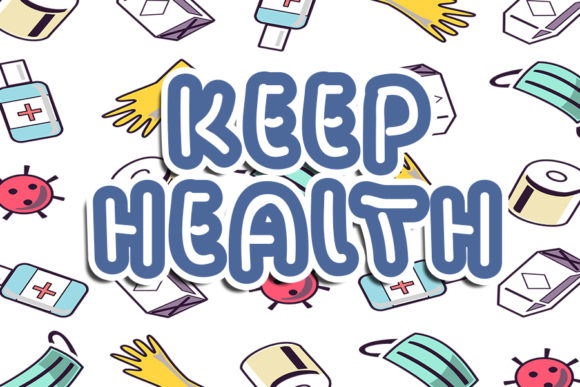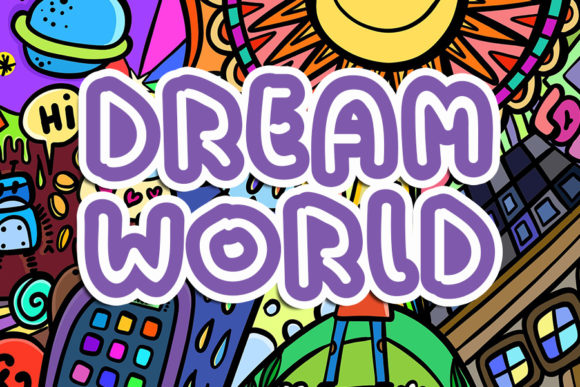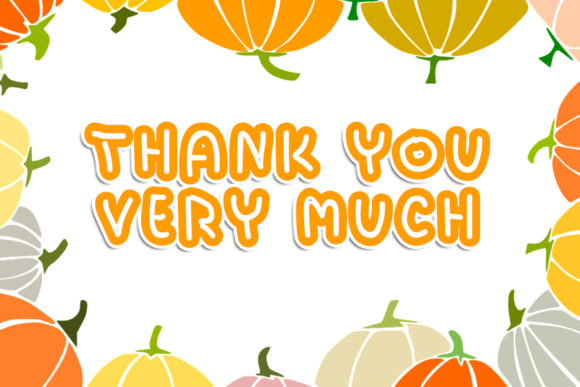
About Smart School Font
Smart School is a unique and fun handwritten font that brings a playful and creative touch to your projects. With its distinctive style and charming letterforms, this font is perfect for a wide range of designs, particularly those that aim to inspire and engage.
The playfulness of Smart School makes it a great choice for various creative projects. Whether you’re designing inspirational wall posters, educational materials, children’s books, or any other creative endeavor, this font adds a touch of fun and energy to your designs. Its handwritten appearance gives it a personal and authentic feel, making it relatable and appealing to your audience.
Smart School’s unique and quirky letterforms make it stand out from more traditional fonts, allowing you to create eye-catching designs. The irregular shapes and playful strokes give your text a dynamic and energetic look, adding visual interest to your designs. This font encourages creativity and invites viewers to engage with your content.
Whether you’re designing for a school, tutoring center, or any educational-related project, Smart School is an excellent choice. It captures the essence of a fun and interactive learning environment, making it ideal for educational materials, classroom posters, and promotional materials. Its friendly and approachable style helps create a positive and welcoming atmosphere.
Moreover, Smart School can also be used for various other design projects, such as branding, packaging, social media posts, and more. Its versatility allows it to adapt to different themes and purposes, giving you the flexibility to explore various creative possibilities.
So, embrace the unique and fun nature of Smart School and let it bring a touch of playfulness to your designs. Whether you’re aiming to inspire, educate, or simply add a fun element to your projects, this font is a great choice. Let Smart School spark creativity and make your designs truly stand out with its distinctive and engaging style.